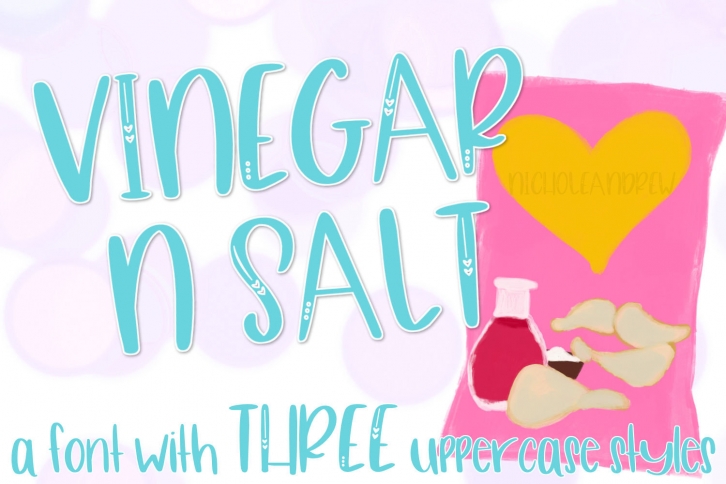
Vinegar N Salt is a trendy and unique font with an authentic style. It was designed by Nichole Andrew and it's a great choice for creative people who need such a font. It was released on February 26, 2020 and the file size is 18.90 MB. Vinegar N Salt will add an organic vibe to any design idea!